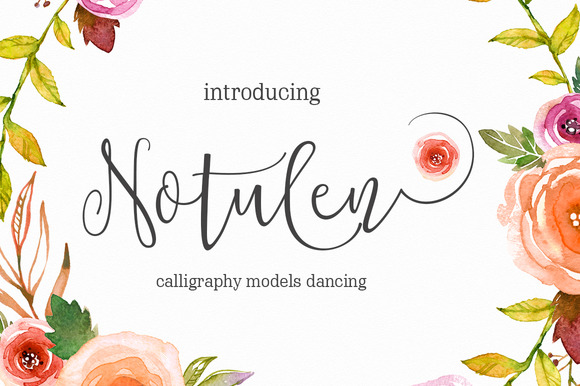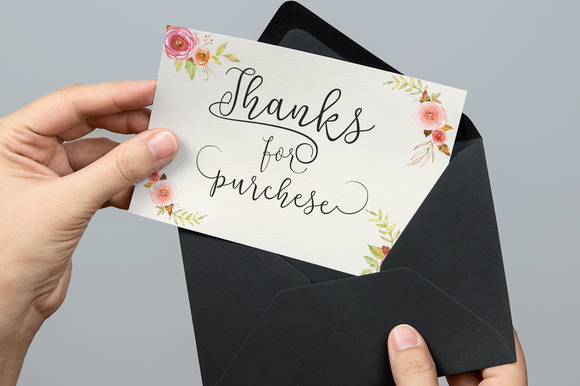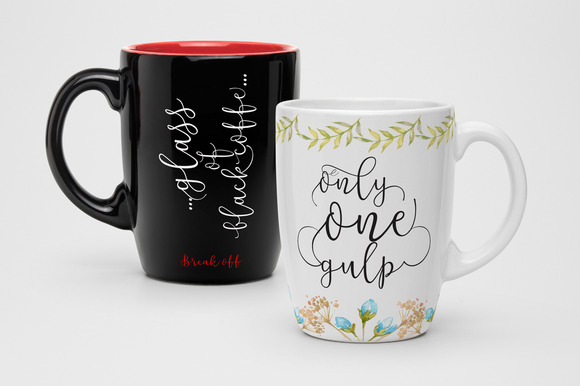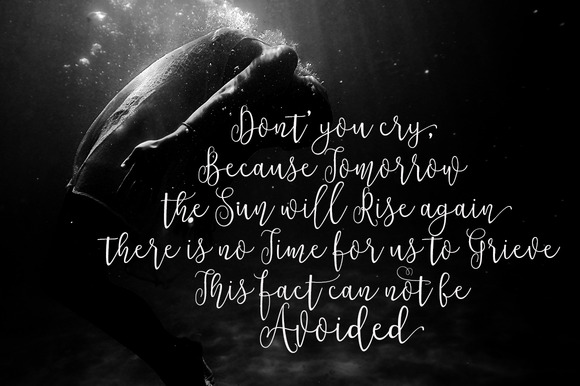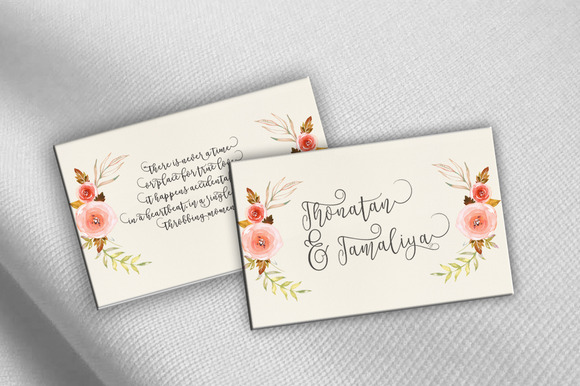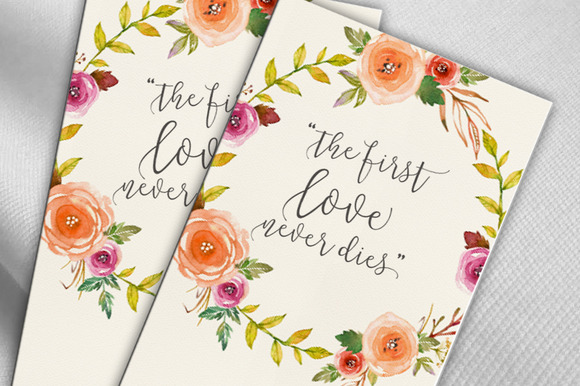
HomeScript FontsNotulen Font Script Fonts Notulen Font FacebookXPinterestWhatsApp Notulen Font Poster 2 Notulen Font Poster 3 Notulen Font Poster 4 Notulen Font Poster 5 Notulen Font Poster 6 About Notulen Font Notulen is a thin handwritten font that is packed with OpenType features. DOWNLOAD ON CREATIVE FABRICAThis font is sold and delivered by Creative Fabrica. Font Canyon may earn a commission if you buy through this link. People also explored Brightmoon Font Humayra Font Marilena Font Handgoals Font Soulmate Font Count Your Blessings Font Bristhonie Font Valentinos Font Searches Font 336 0 TagsNotulen Font Previous articleOlivera FontNext articleMutiara Script Font LEAVE A REPLY Cancel reply Comment: Please enter your comment! Name:* Please enter your name here Email:* You have entered an incorrect email address! Please enter your email address here Website: Save my name, email, and website in this browser for the next time I comment. Personal Use Free Axaxax Bold Personal Use Free Read more about this font Malinda Personal Use Free Read more about this font Shrag Script Personal Use Free Read more about this font Chandella Personal Use Free Read more about this font BLOG Elegant Wedding Invitation Fonts – Handwritten & Script Fonts Elegant Wedding Invitation Fonts Your wedding day is one of the most important moments of your life, and every detail matters—including your invitation design. Our... Exploring Font Trends Using Fonts in Digital Marketing: Tips to Strengthen Your Brand Identity Where to Buy American Fonts Online in 2024